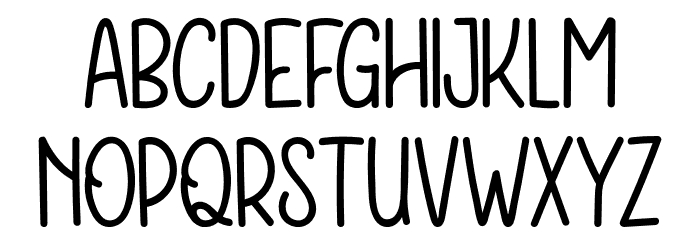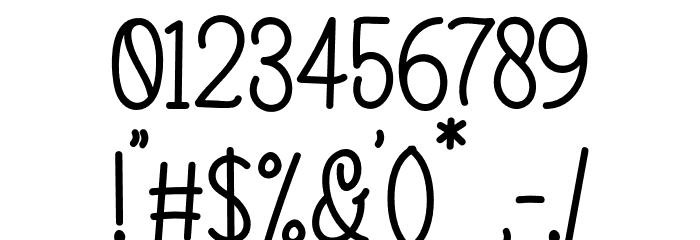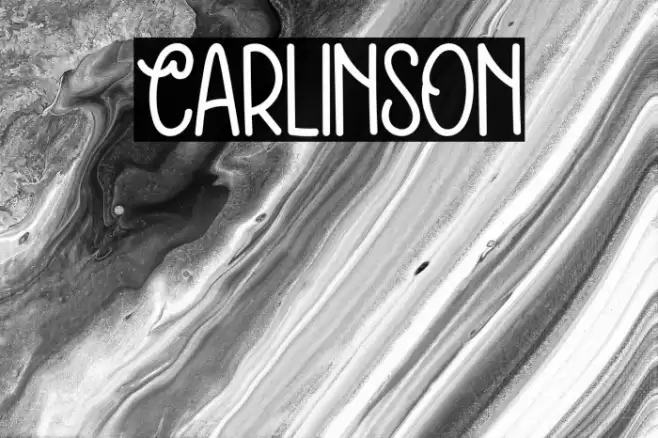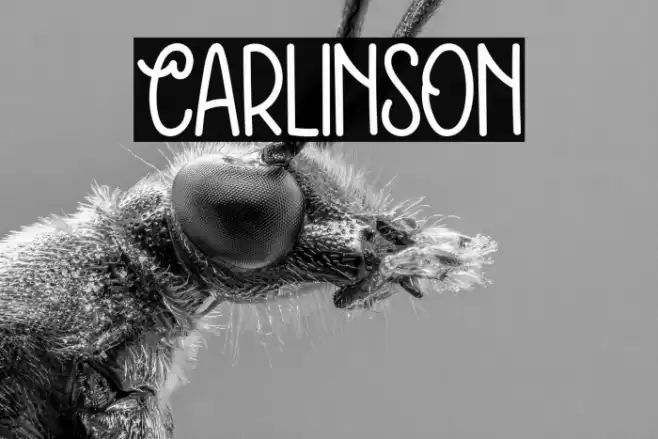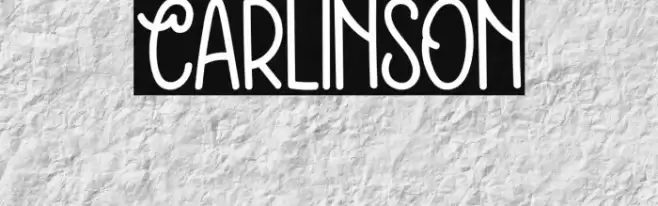
Carlinson Font
This playful and whimsical font features a unique blend of bold, rounded strokes and decorative elements. The uppercase letters have a distinct, almost cartoonish flair, with some characters incorporating loops and swirls that add a touch of fun and creativity. The lowercase letters maintain a consistent style, offering a smooth and flowing appearance. Numbers and special characters are designed to match the playful aesthetic, making them suitable for a variety of creative projects. The font's overall style is both eye-catching and approachable, making it ideal for designs that require a touch of personality and charm.
A playful and whimsical font with bold, rounded strokes and decorative elements.
- Font: Carlinson
- Proposed Projects: Great for children's books, playful branding, greeting cards, and creative posters.
- Overall Style: Playful